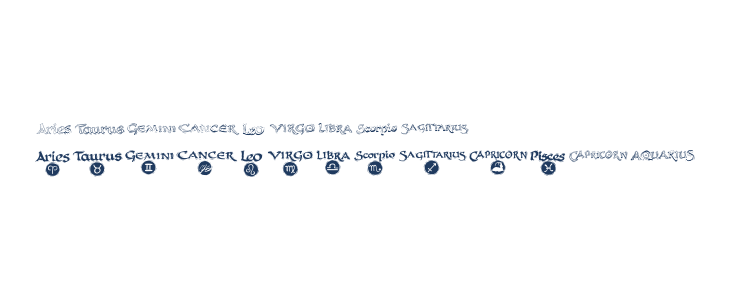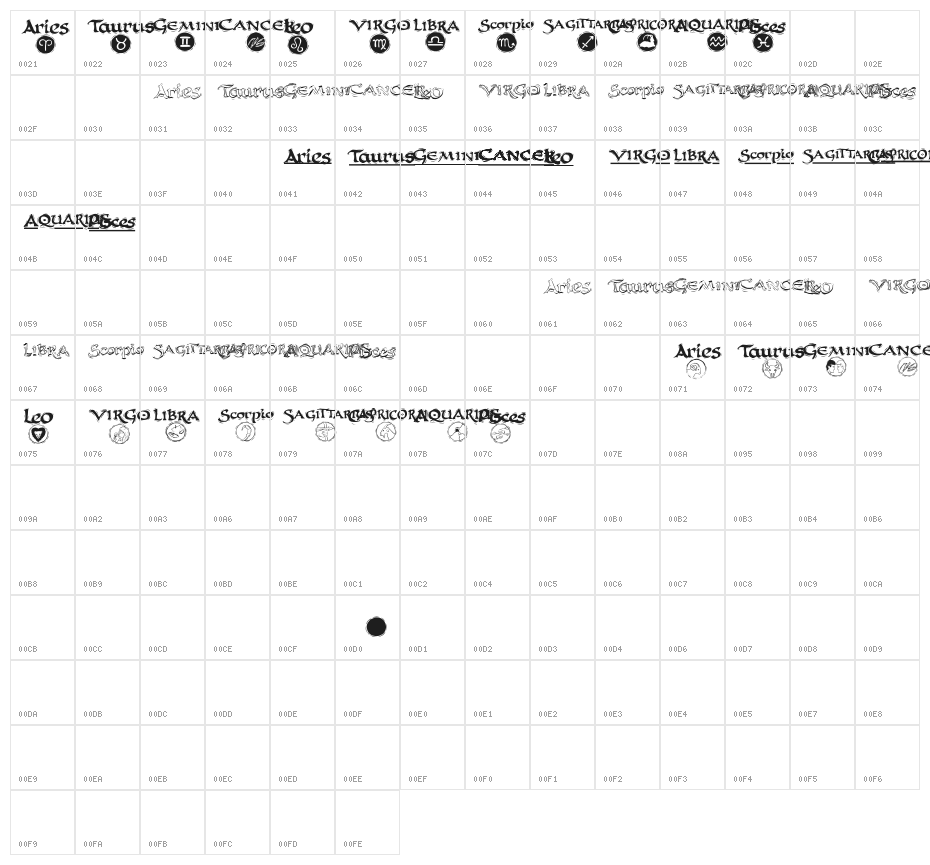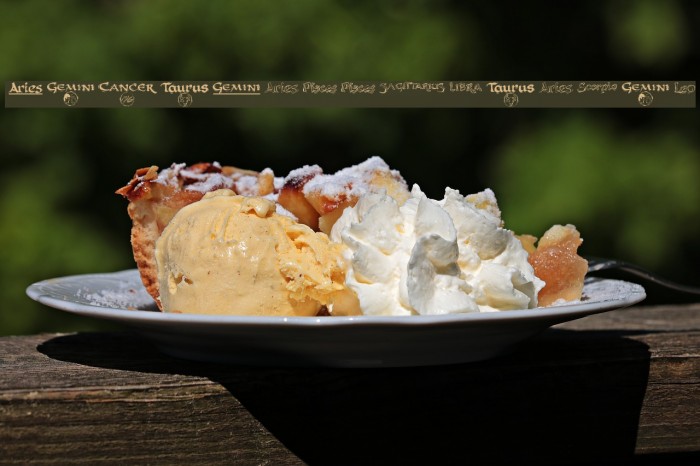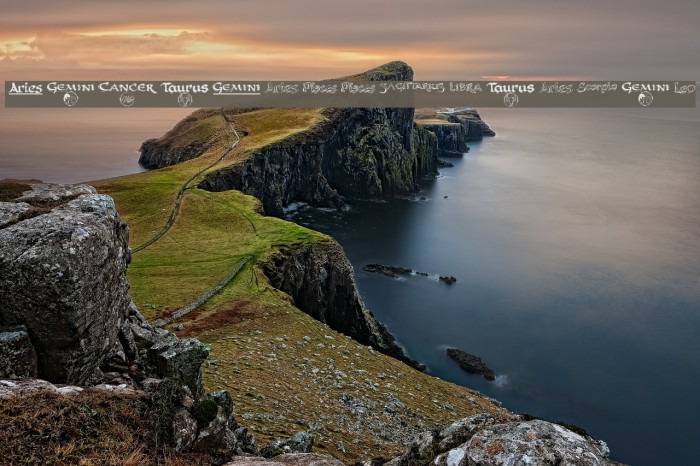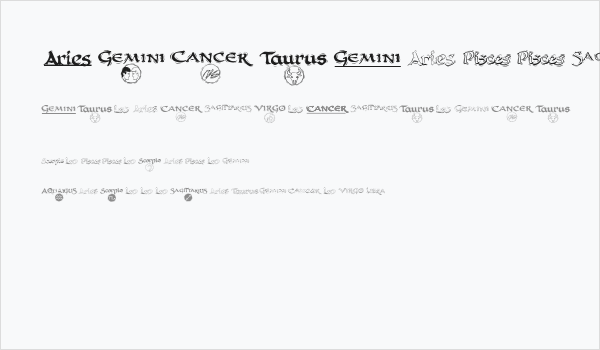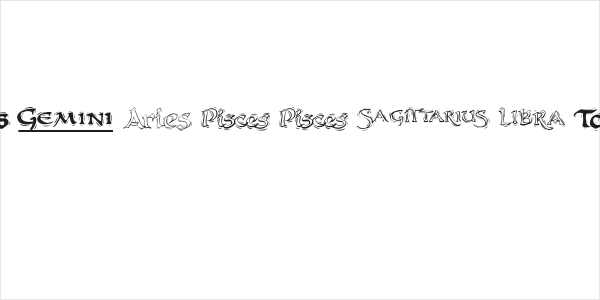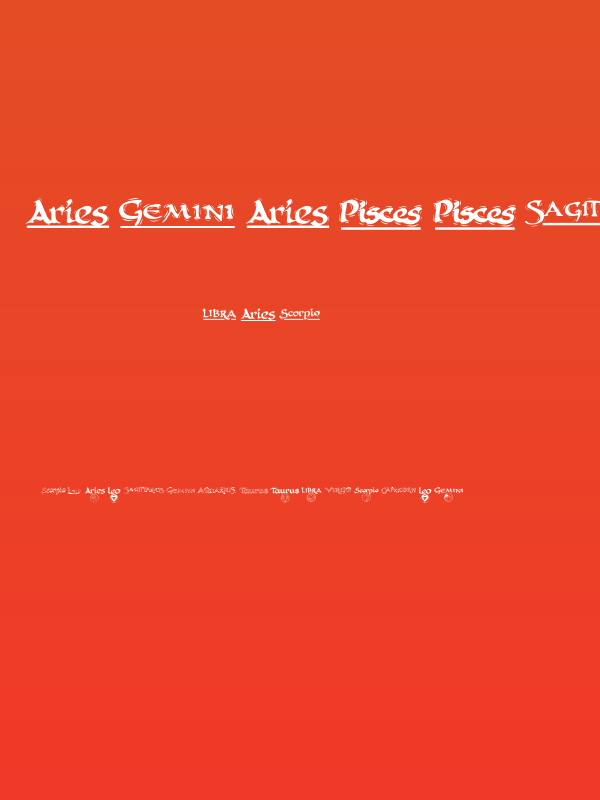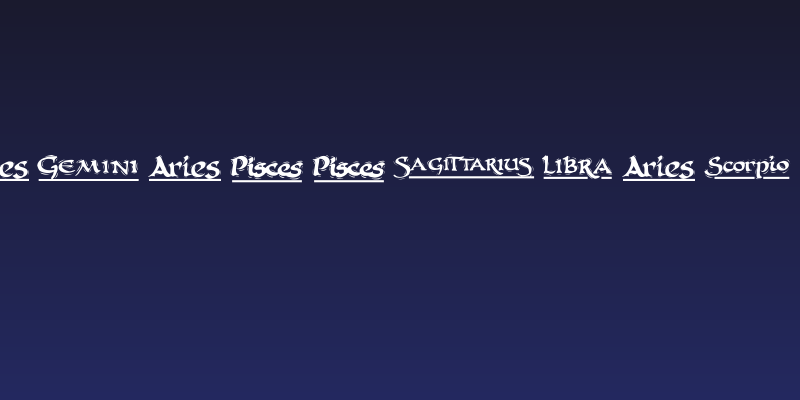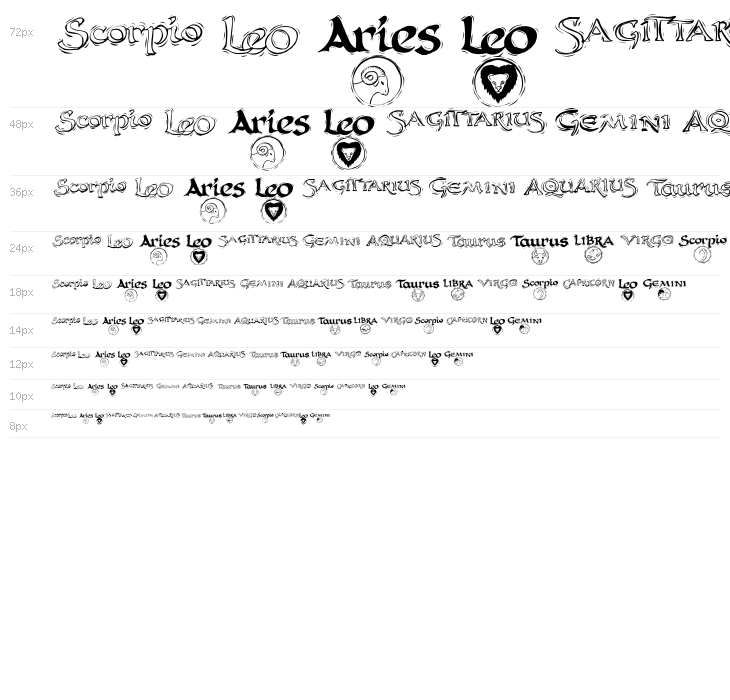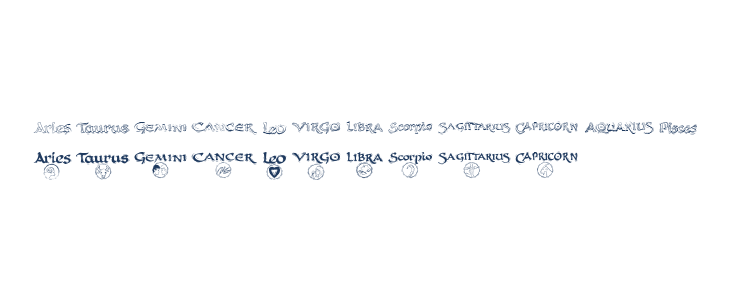
AstroCalligraphsOne Font
AstroCalligraphsOne Description
This font features a whimsical and decorative style, reminiscent of astrological and mystical themes. The characters are embellished with unique flourishes and curves, giving each letter a distinct personality. The uppercase letters are bold and prominent, while the lowercase letters maintain a playful yet elegant appearance. The font includes zodiac symbols, enhancing its celestial theme. It is well-suited for projects that require a touch of magic or fantasy, such as invitations, posters, or themed branding. The overall design is both artistic and readable, making it versatile for various creative applications.
| Proposed Projects | Ideal for invitations, posters, themed branding, and creative projects with a mystical or fantasy theme. |